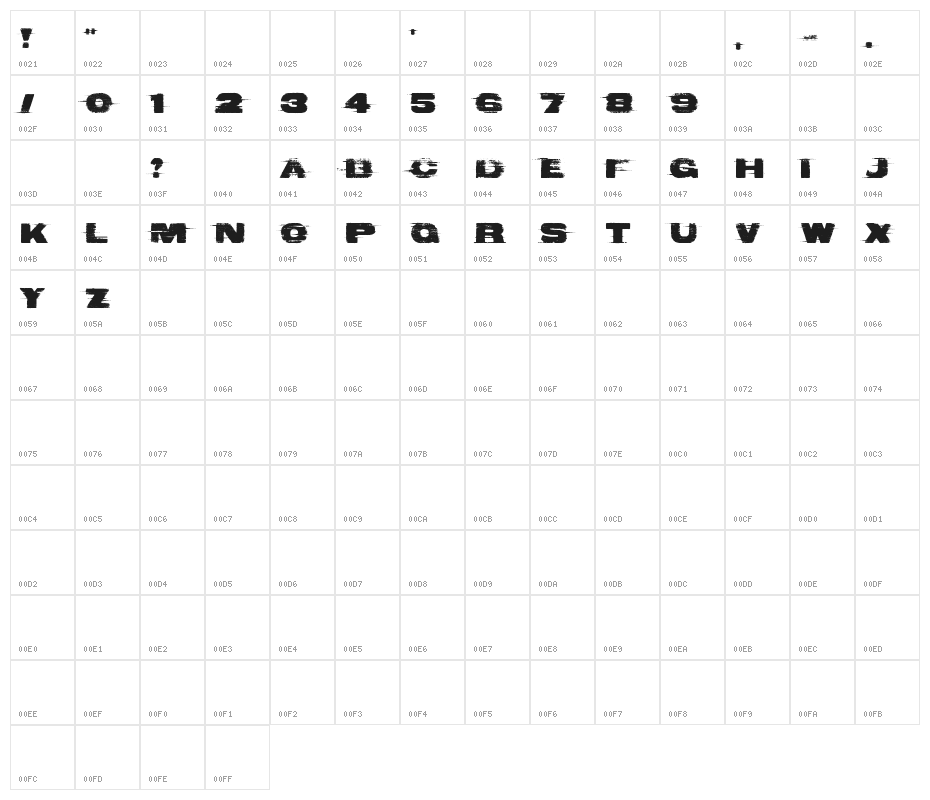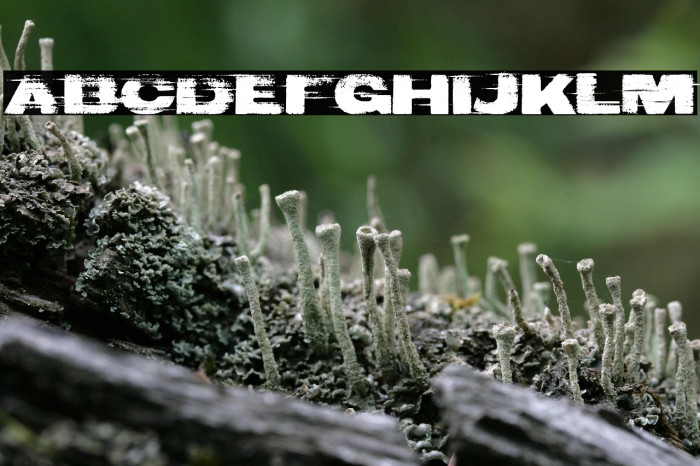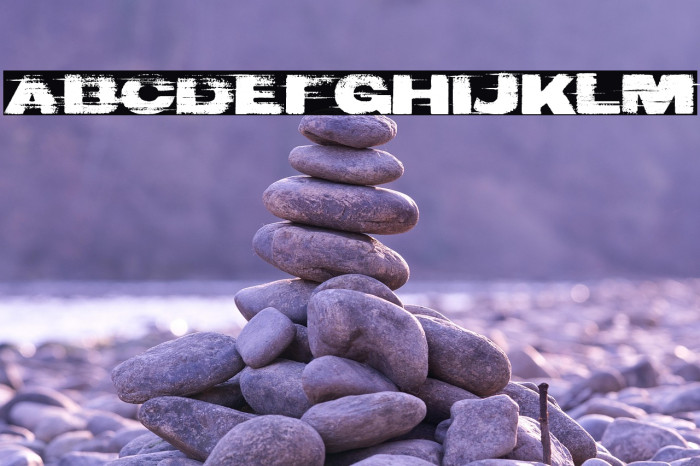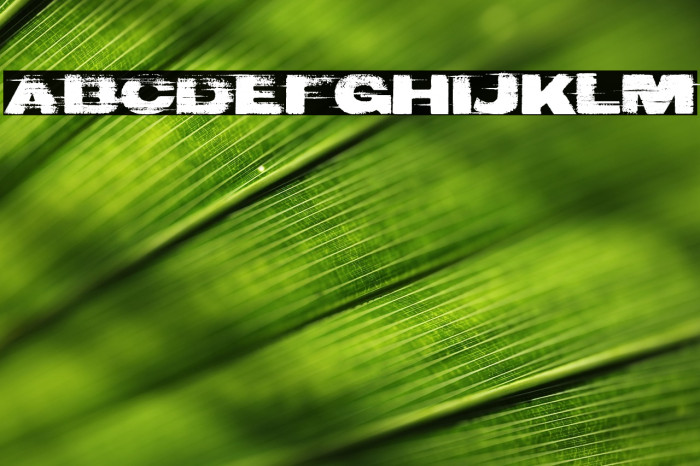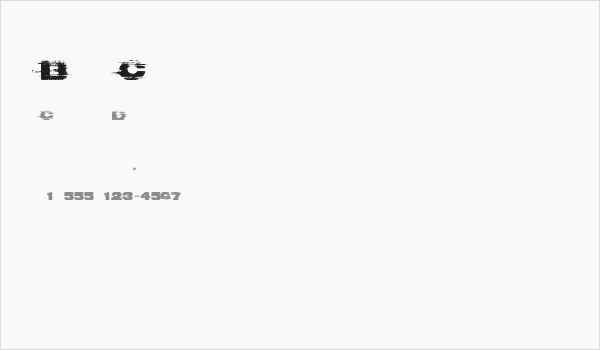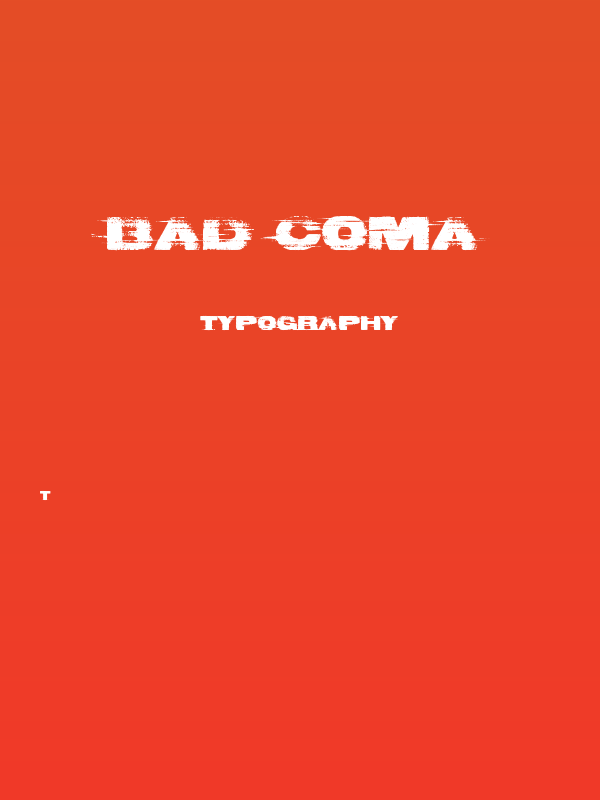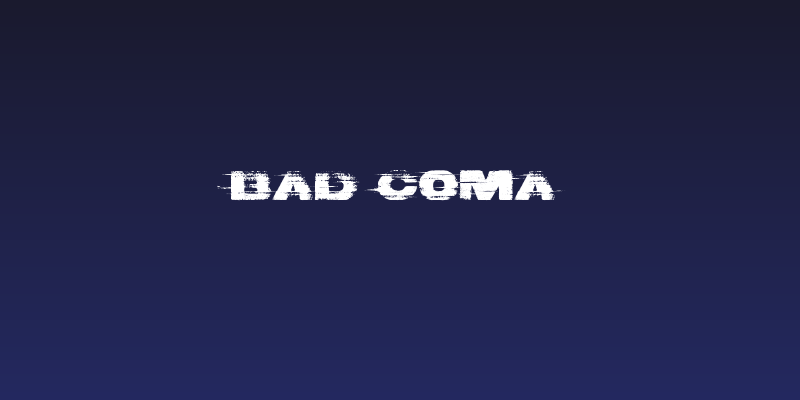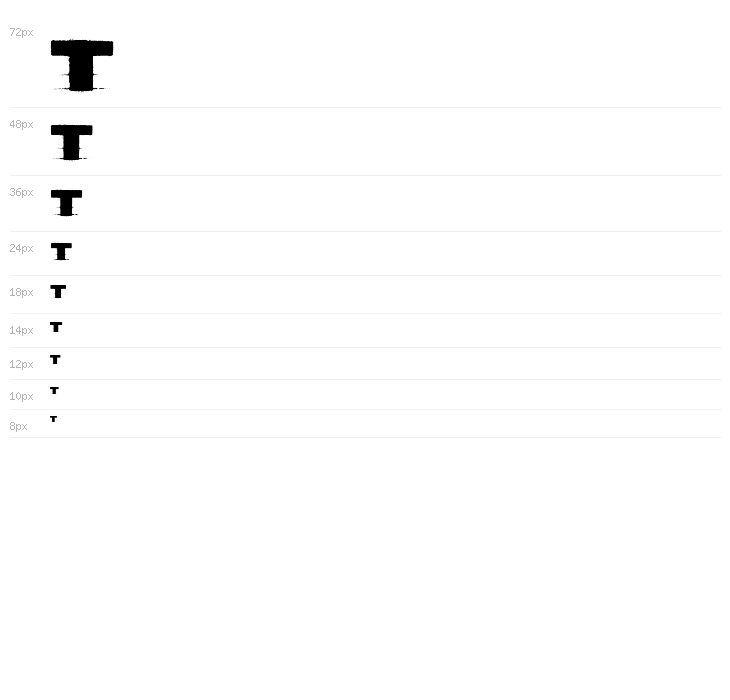
Bad Coma Font
Bad Coma Description
This font features a bold, distressed style with a grunge aesthetic. The characters are heavily textured, giving them a worn and rugged appearance. The uppercase and lowercase letters maintain a consistent width, creating a uniform look despite the distressed details. Numbers and special characters follow the same design, ensuring cohesion across all elements. The font's boldness and unique texture make it stand out, ideal for projects that require a strong visual impact.
| Overall Style | Grunge, Urban |
| Proposed Projects | Ideal for album covers, posters, streetwear branding, and any design needing a gritty, urban feel. |